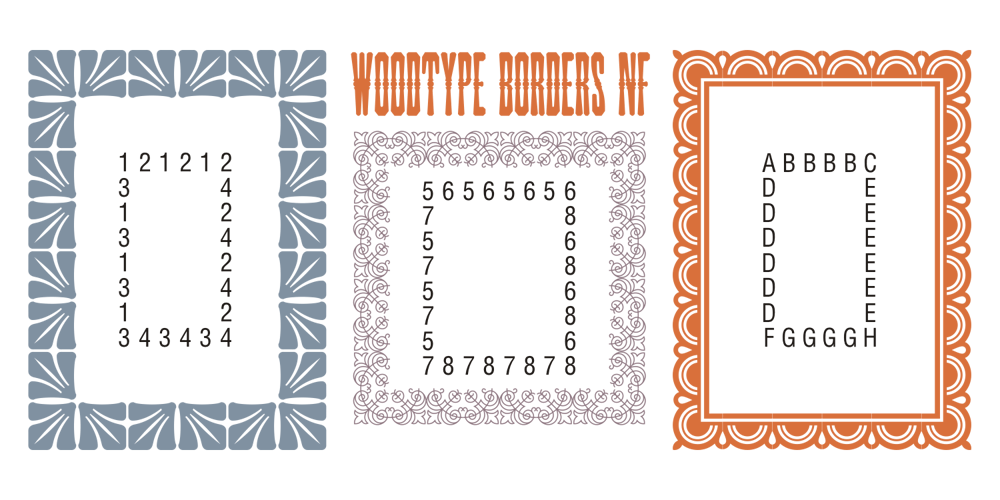
Woodtype Borders NF Font Family was designed by Nick Curtis and published by Nick’s Fonts. Woodtype Borders NF contains 1 styles and family package options. Here’s a handy-dandy collection of border elements gleaned from the specimen books of various manufacturers of woodtype from around 1840 to 1885. Refer to the PDF guide for detailed, yet simple, instructions for constructing sixteen different border patterns, all with Victorian grace and charm.